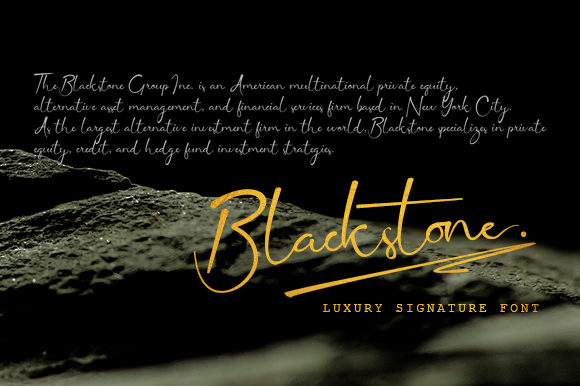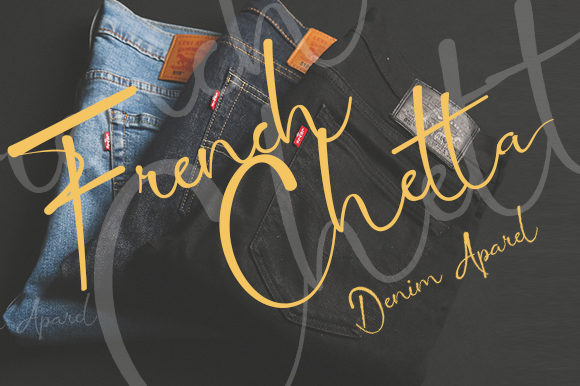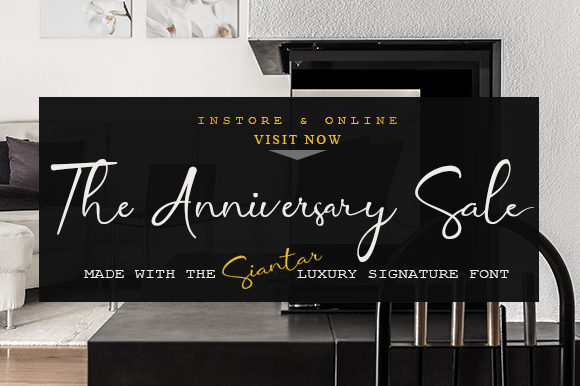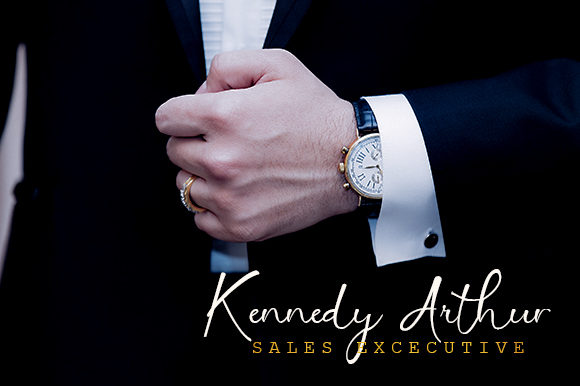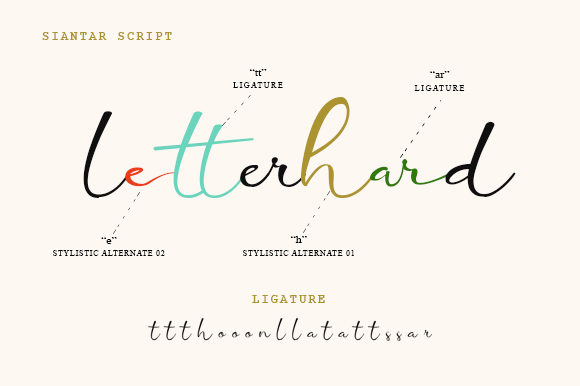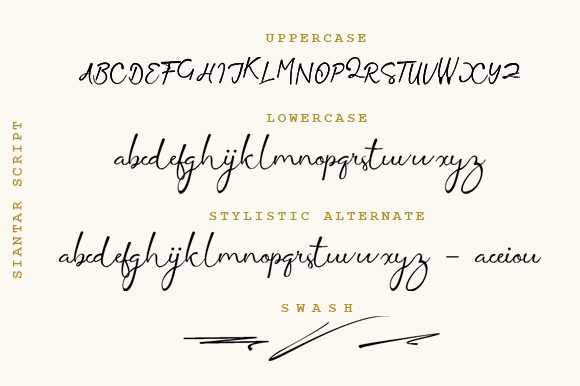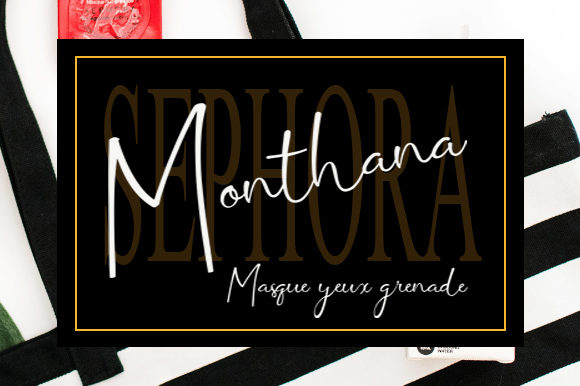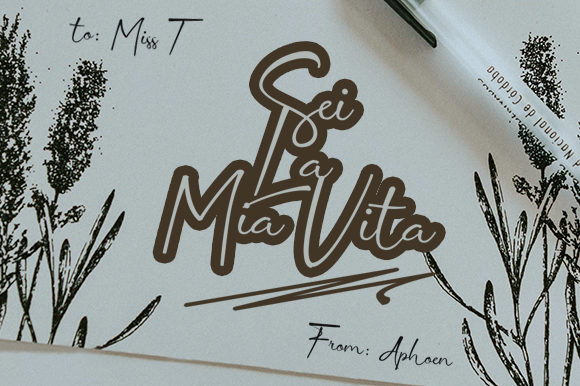
Siantar Font
Siantar is a luxurious signature font that is great for craft projects and branding! It will add a romantic touch to any crafting project.